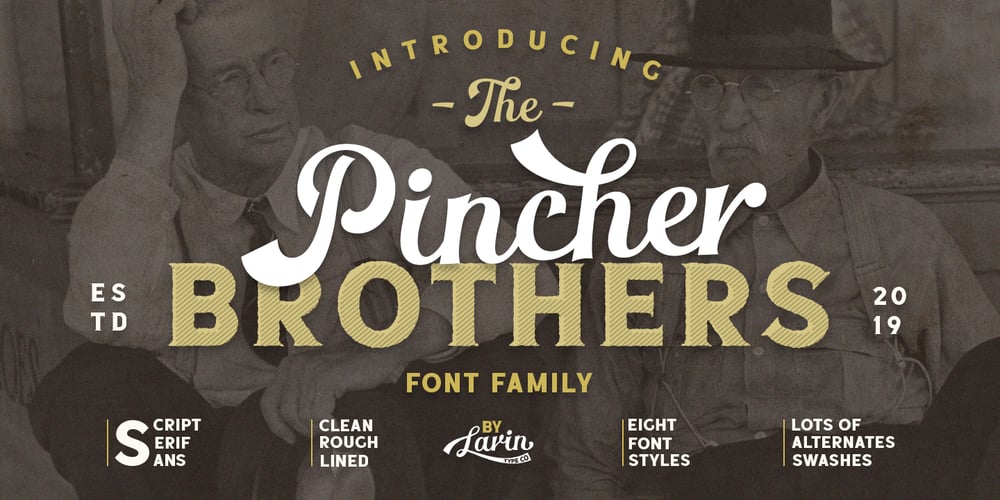
The Pincher Brothers Font Family was designed by Pavel Larin and published by Larin Type Co. The Pincher Brothers contains 8 styles and family package options. The Pincher Brothers is a beautiful vintage collection of fonts that consists of a script, a serif, a sans and also rough styles to help you create your project in a clean or rough style. Pay attention to the script as it has many swashes and alternates for uppercase and lowercase to that add personality to your design and make it unique.